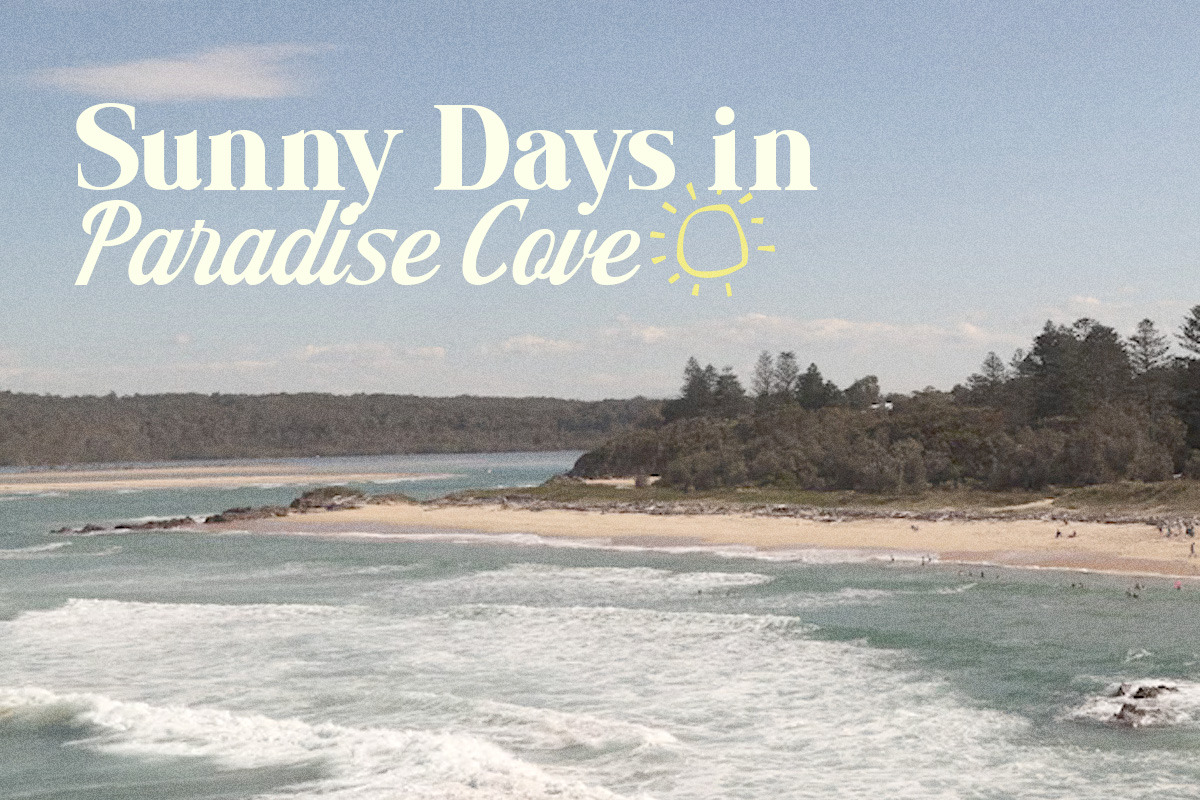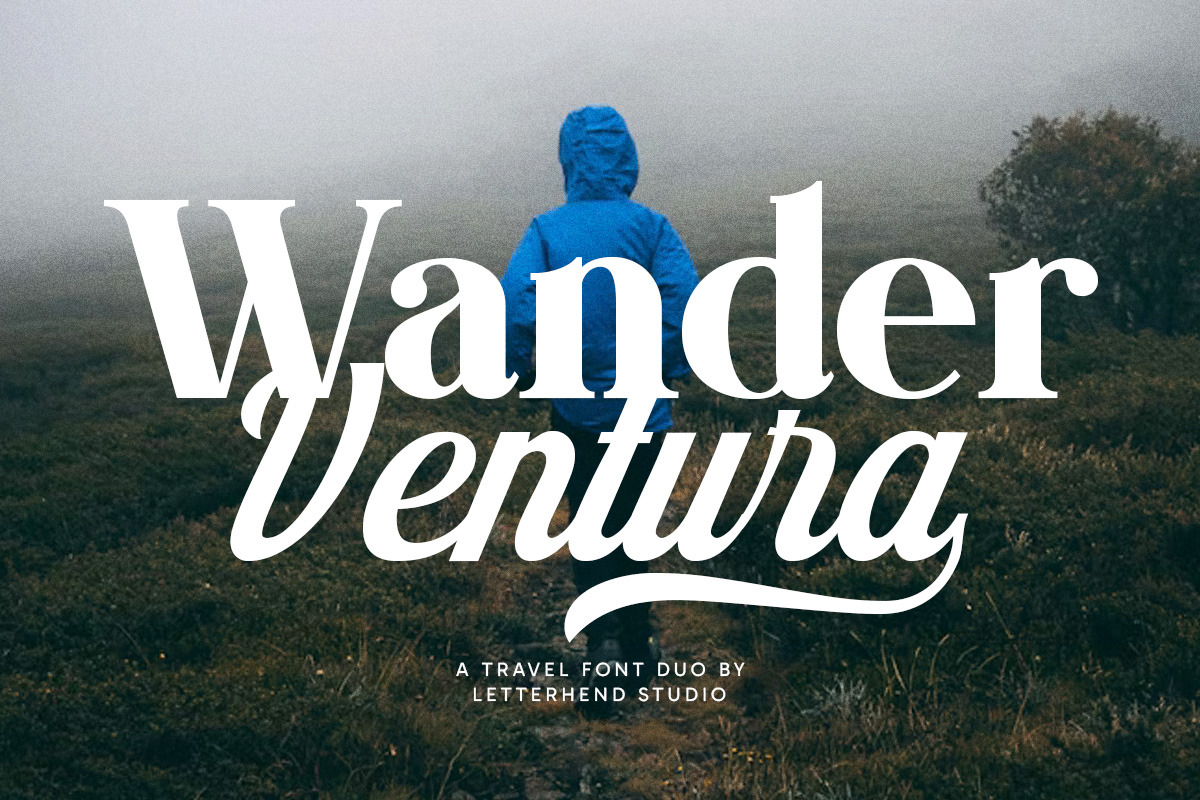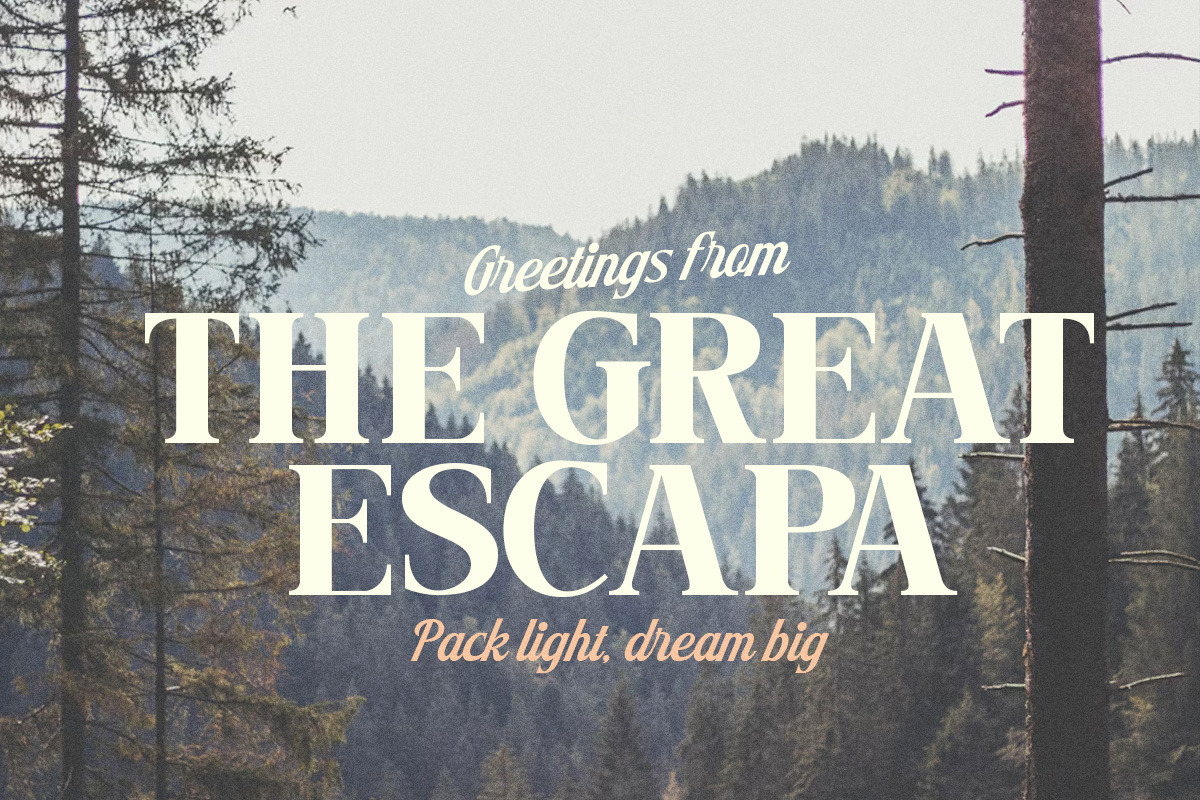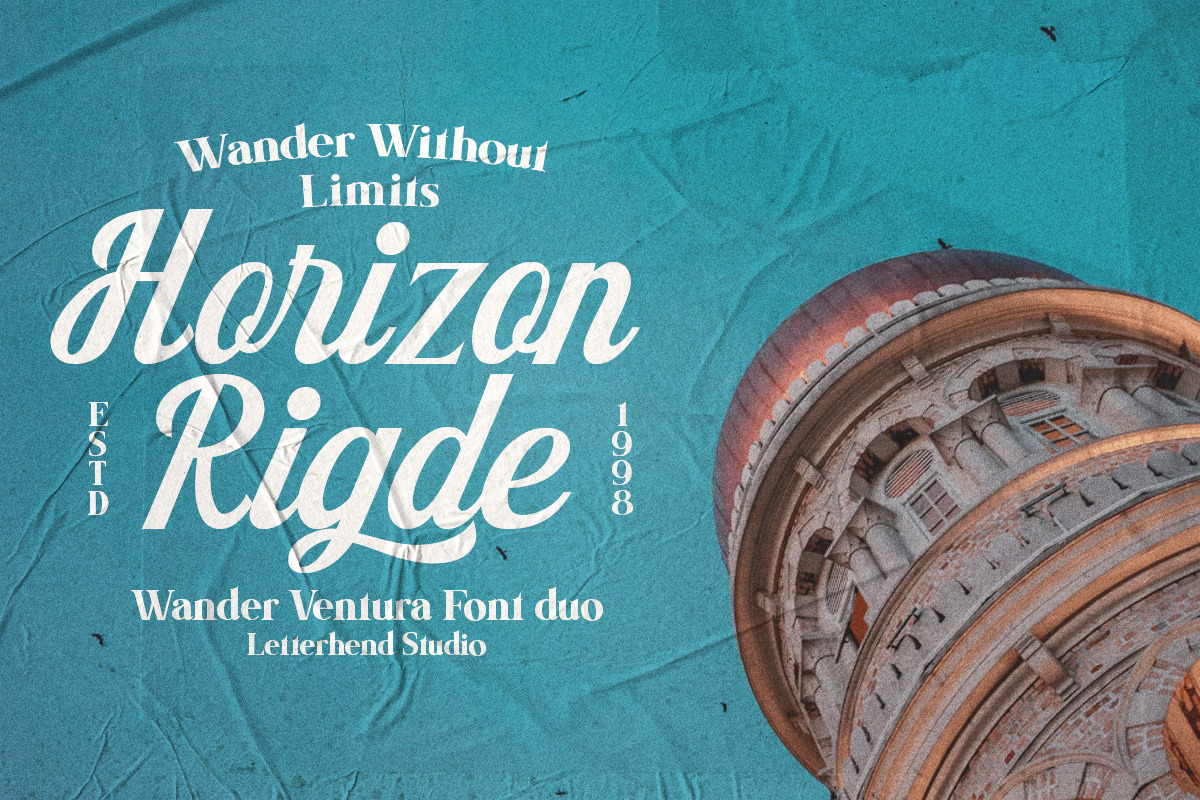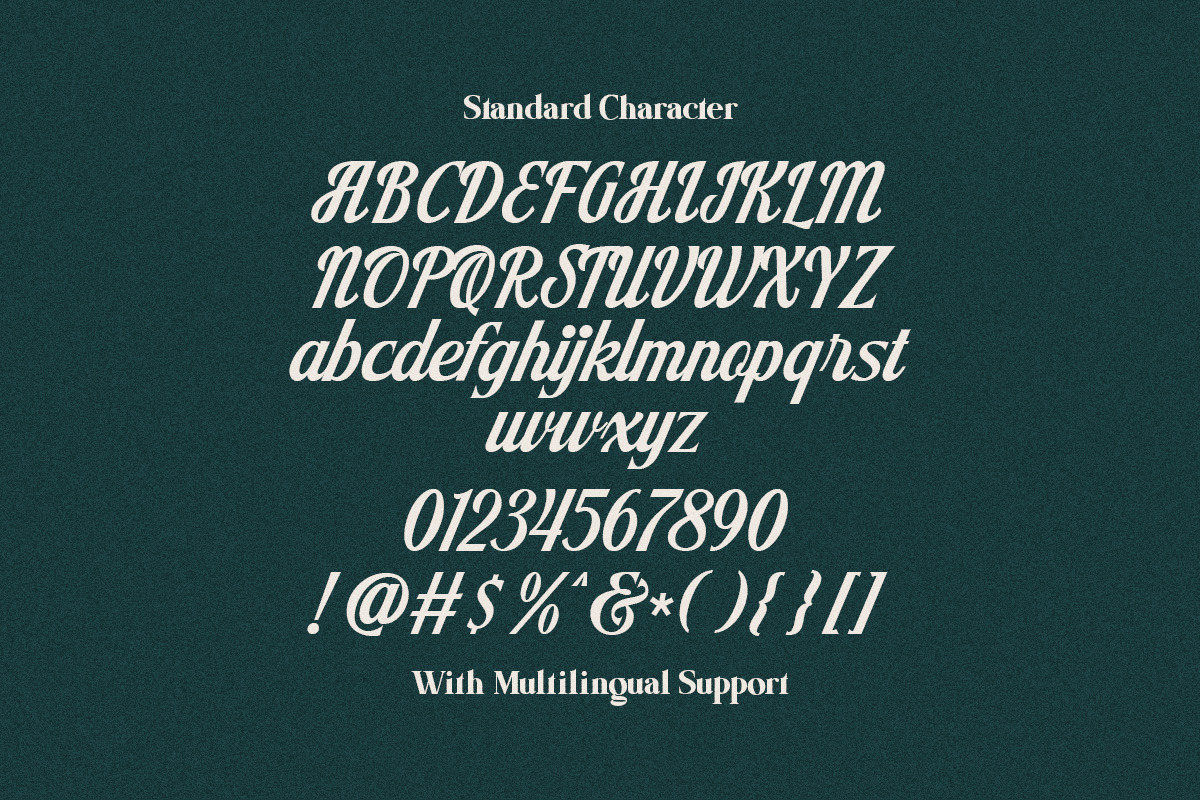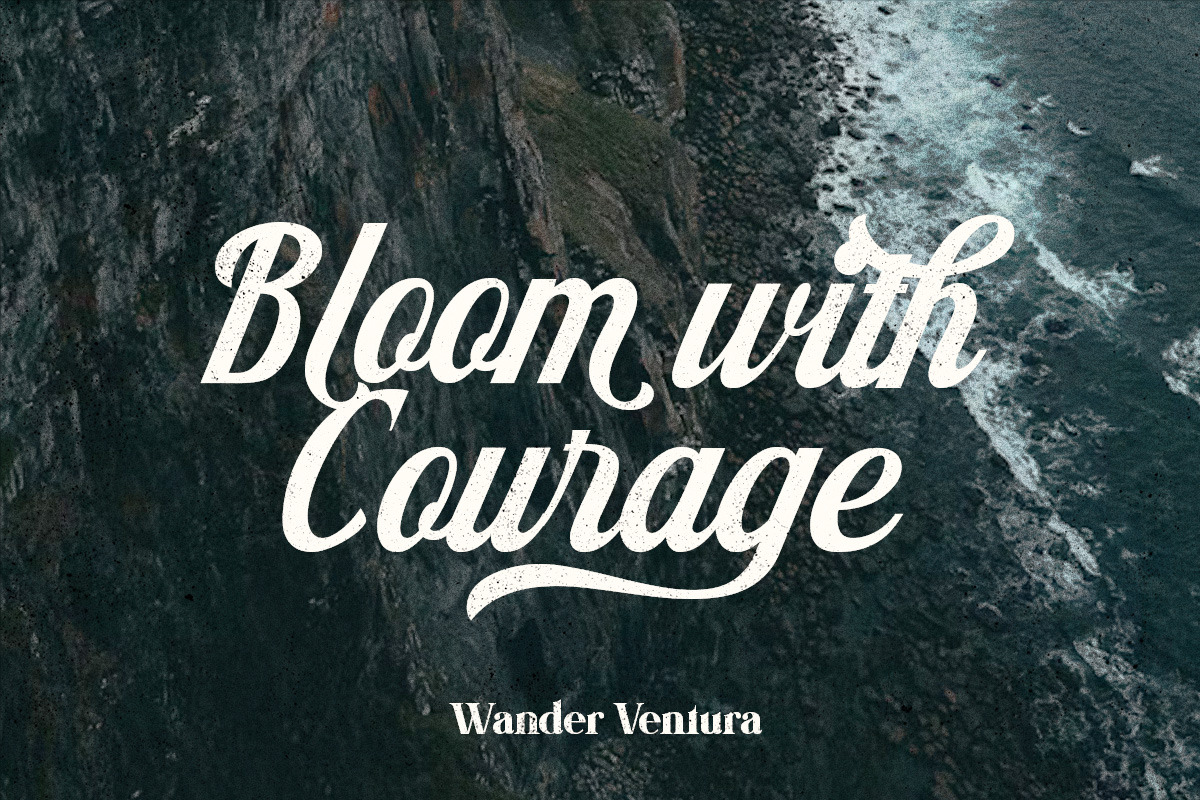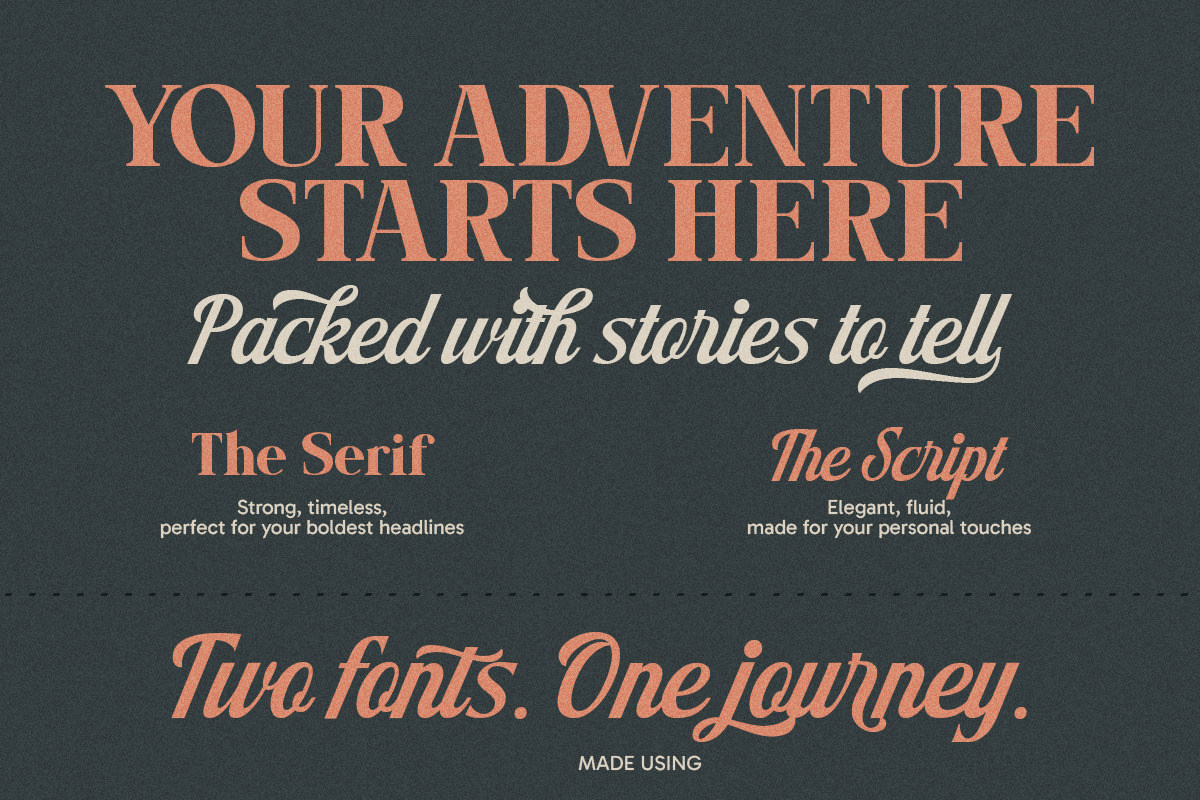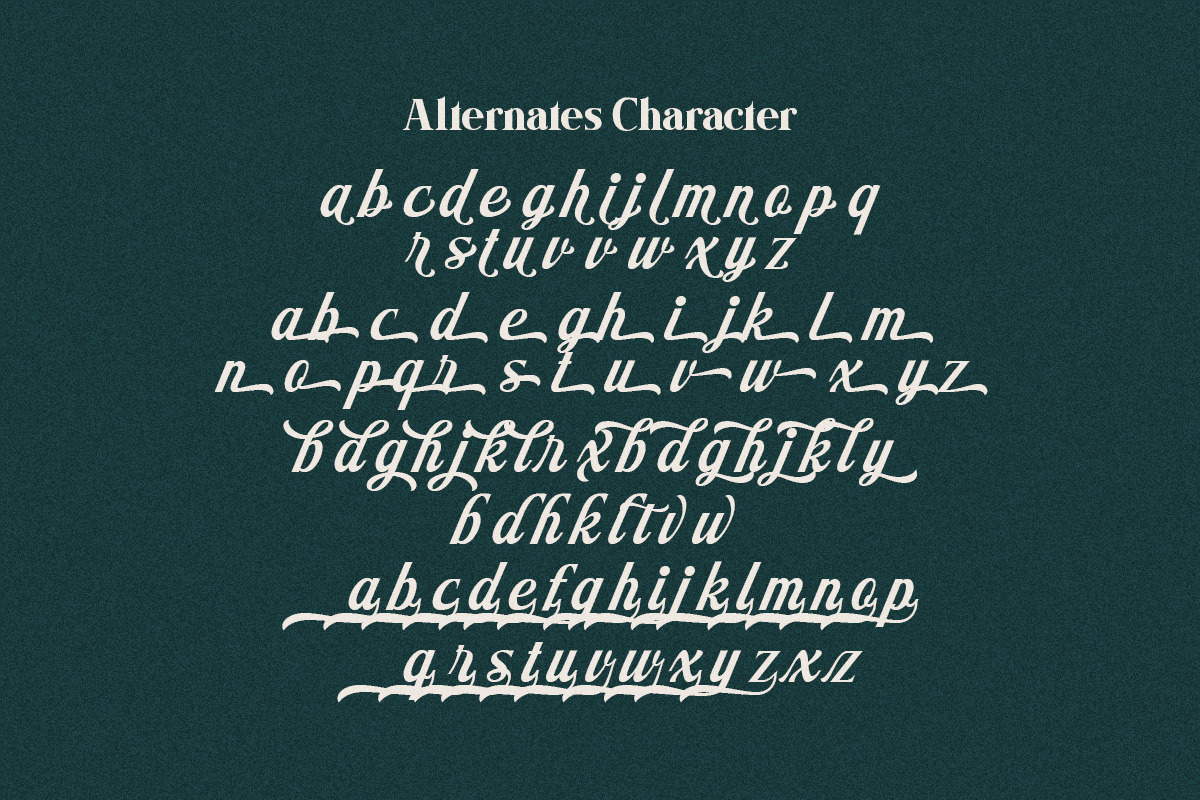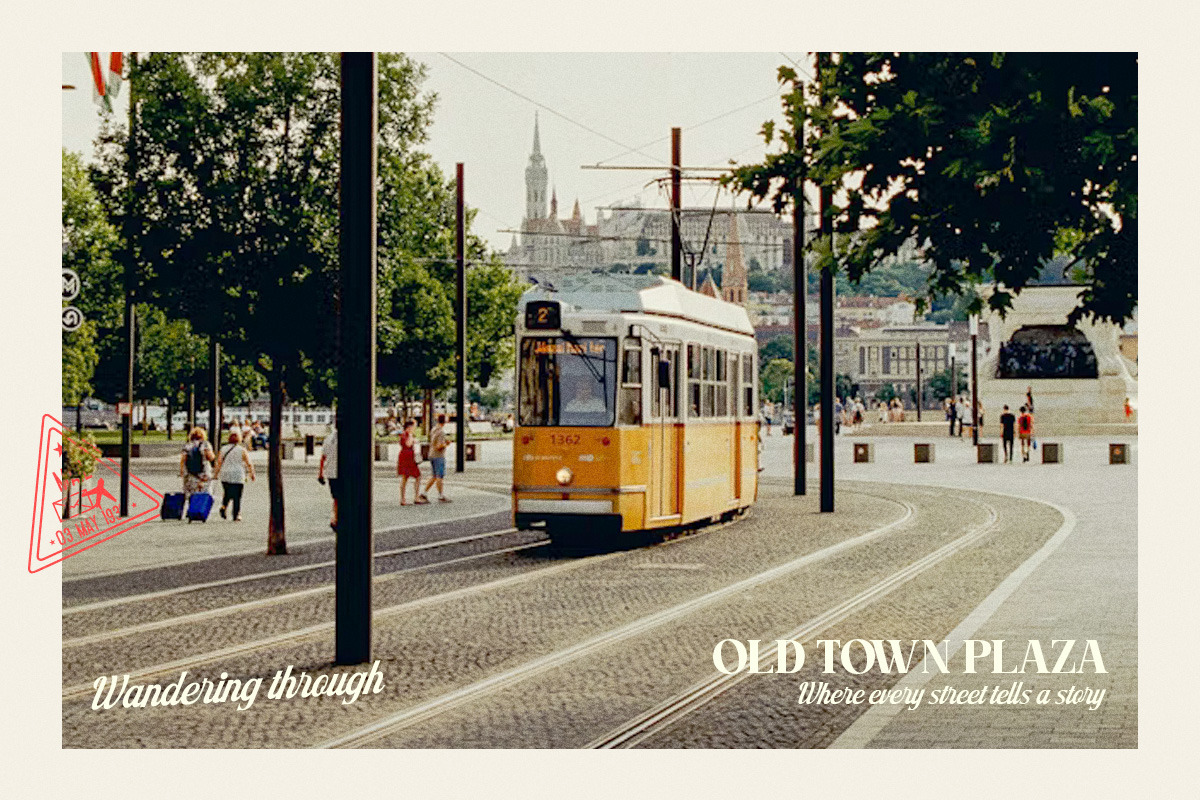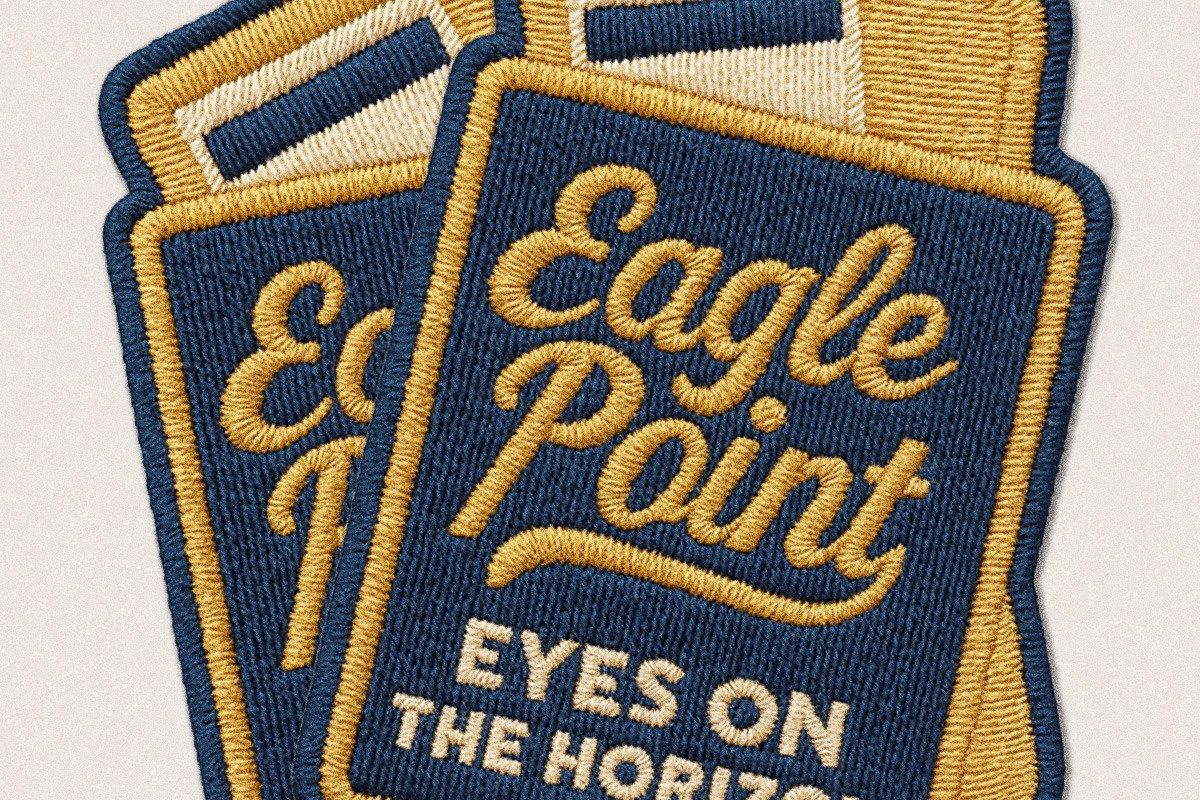
Wander Ventura - Travel Font Duo
Wander Ventura is a travel-inspired font duo that captures the spirit of adventure with a mix of bold serif strength and flowing script elegance. It’s the kind of typeface that feels at home on misty mountain postcards, rustic travel journals, or striking magazine covers—dramatic yet approachable, adventurous yet refined. Perfect for logos, headlines, posters, and branding that wants to tell a story, Wander Ventura brings the vibe of exploration and freedom wherever it’s used.
- Script & Serif